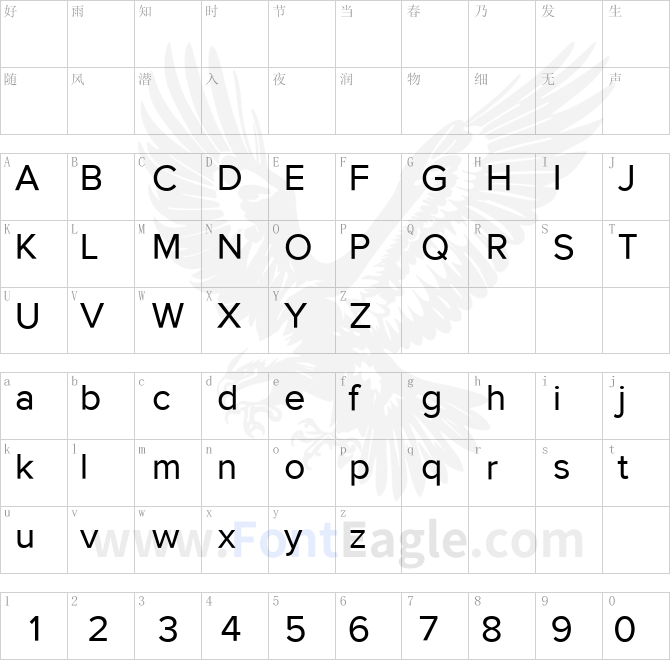
- Font name:ProximaSansRegular
- Font Full Name:ProximaSansRegular
- Postscript:ProximaSansRegular
- Font Copyright:\251 Mark Simonson/Blue Sky Graphics 1994. Proxima Sans is a trademark of FontHaus Inc.